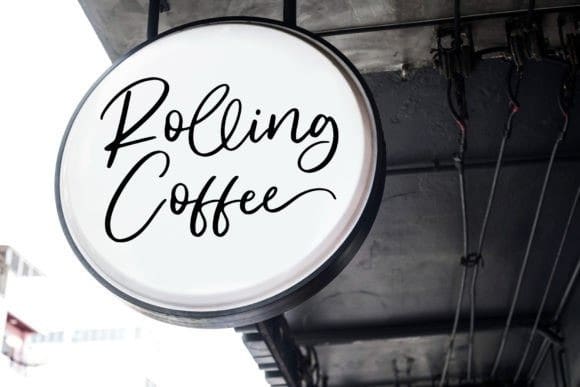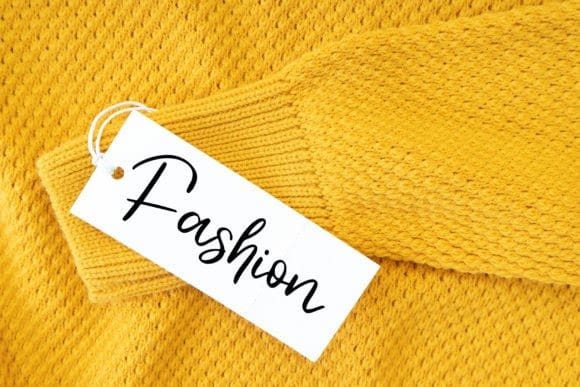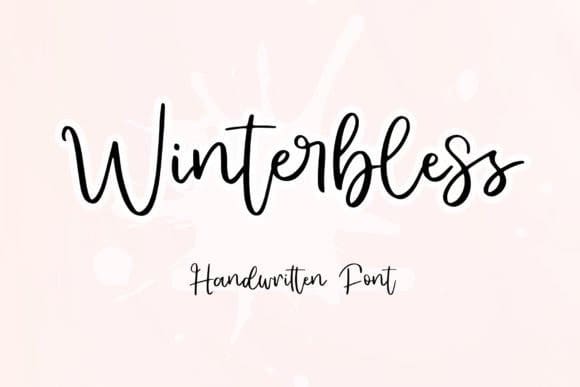
Winterbless Script Font
Winterbless Script Font is an enchanting handwritten font. This versatile script font has a wide spectrum of applications ranging from greeting cards to headlines and is guaranteed to add a romantic feel to your next project.